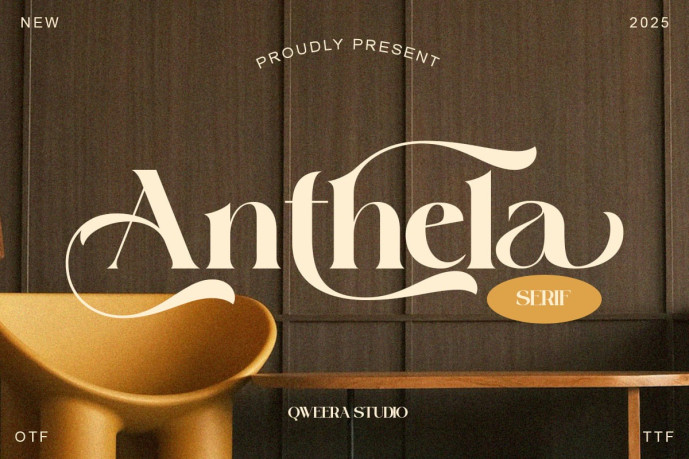
Anthela Serif Font
Designer: IdhhamCholid
Anthela Serif Font is an elegant boutique serif font designed with graceful swashes, refined curves, and modern serif structure. This stylish serif typeface blends luxury aesthetics with warm femininity, making it perfect for branding, beauty logos, fashion labels, packaging, and wedding designs.
With smooth flowing alternates and ligatures, Anthela delivers a premium handcrafted serif look while maintaining professional readability.